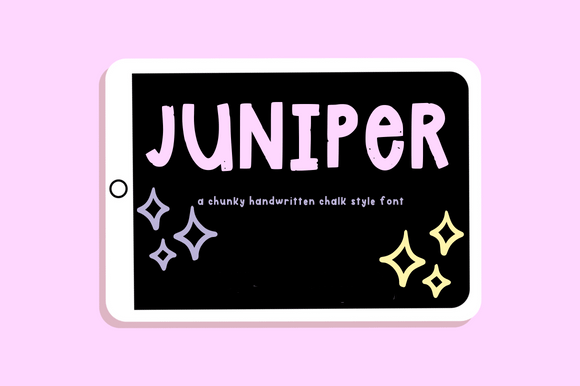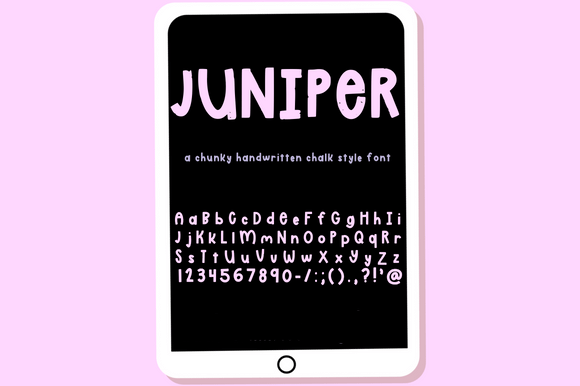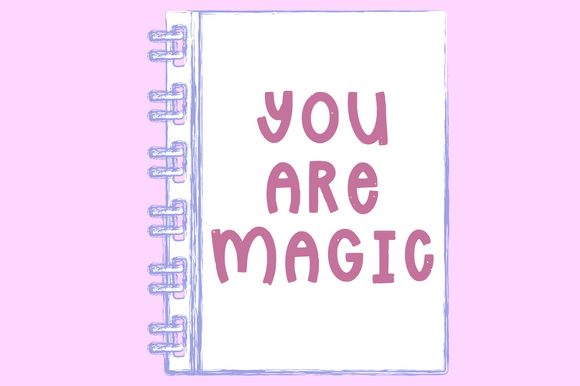
Juniper Font
Juniper Handwritten Font – Bold and Chunky Typeface
The Juniper Handwritten Font is a bold and chunky typeface designed to bring strength and style to your projects. With its clean handwritten strokes and trendy design, it is perfect for creatives who want a versatile font that looks both modern and approachable. Whether you’re making labels, planners, or digital templates, this font will add personality and clarity to your designs.
A Handwritten Script with Strength
The Juniper Handwritten Font blends bold handwritten curves with neat proportions, resulting in a chunky yet polished look. Its strong design makes it stand out, while its smooth flow ensures readability. Because of this balance, it works well for personal projects, digital products, and professional branding.
Perfect for Planners, Labels, and Templates
One of the most popular uses of the Juniper Handwritten Font is in digital planners, calendars, and templates. Its bold and clean strokes make organizing tools visually appealing and easy to read. At the same time, it is perfect for labeling, greeting cards, and craft projects where a modern handwritten font adds extra charm.
The Juniper Handwritten Font adapts effortlessly to different design needs. From posters and product packaging to branding and social media graphics, it provides a bold handwritten charm. Its chunky yet balanced design ensures that it feels trendy and professional in both print and digital contexts.
Why Designers Love Juniper Font
Designers love the Juniper Handwritten Font for its mix of boldness and usability. Its clean, chunky strokes make it unique, while its clarity ensures it remains versatile across different projects. This combination makes it a go-to choice for crafters, designers, and digital creators.
In summary, the Juniper Handwritten Font is a bold, chunky, and versatile script typeface. With its strong handwritten strokes, quick installation, and wide usability, it is perfect for planners, labels, templates, and crafts. Don’t miss the chance to download Juniper Handwritten Font and add bold creativity to your designs.